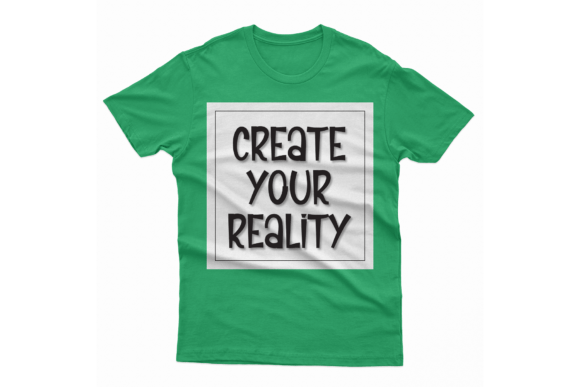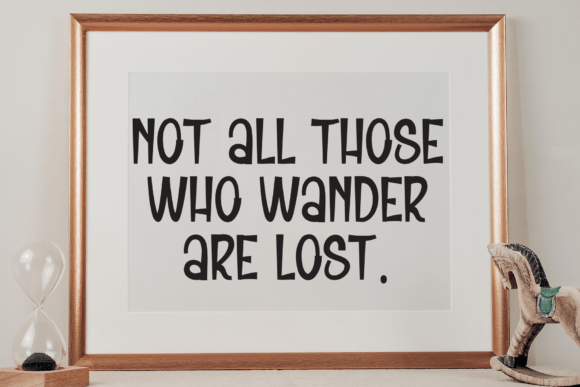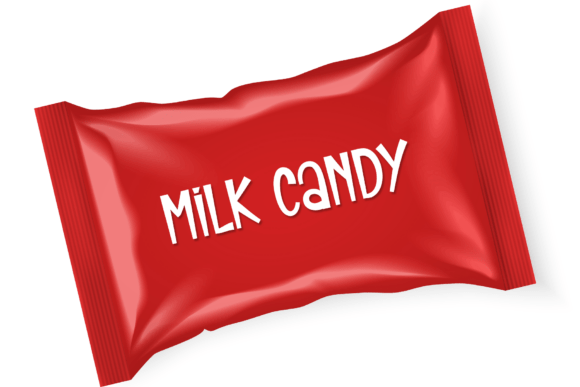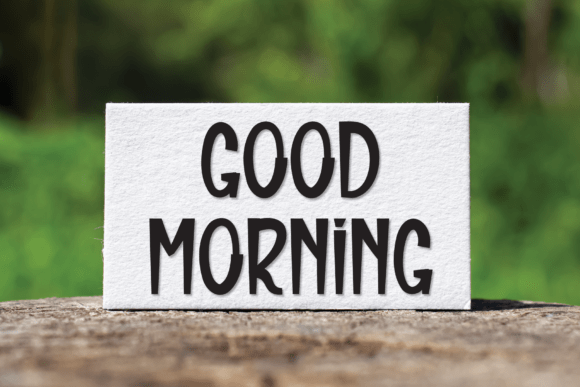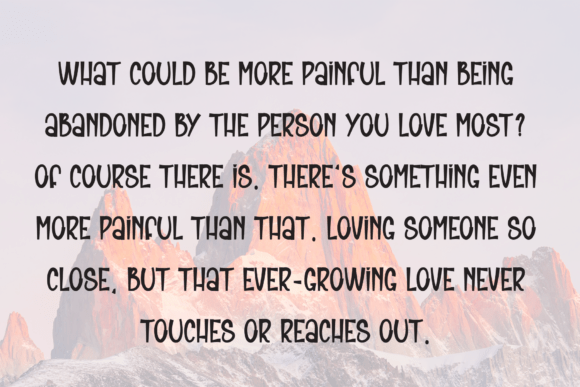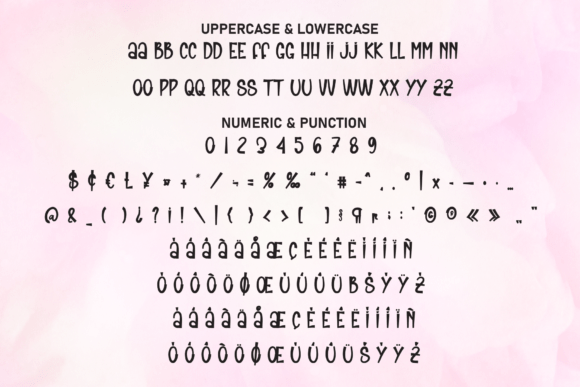
Introduction to Barbie Walking Font
Introducing a gorgeously fluid, casually sophisticated font, each letter radiating with an inviting sense of warmth.
The spellbinding nature of this typography is steeped in a cheerful, energetic persona, perfectly suited for crafting enchanting wedding invitations, whimsical greetings or any artistic project yearning for a sprinkle of joy Allow its magnetic charm to ignite your creative expressions.